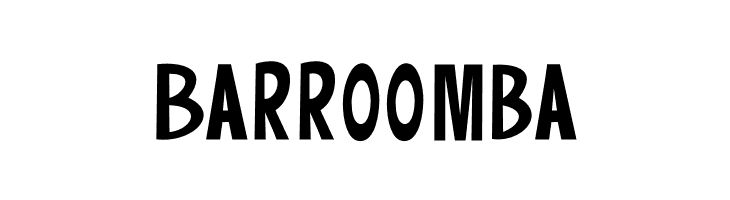
A bold, italic font with a dynamic, angular design.
A bold, geometric font with angular forms and playful design elements.
A bold serif font with a classic yet playful design.
A bold, geometric font with a modern, futuristic design.
A bold, 3D outlined font with a geometric, modern style.
A bold, 3D italic font with a modern, outlined design.
A bold, semi-italic font with a modern, angular design.
A bold, geometric, and condensed font with a modern and impactful style.
A bold, geometric font with strong, angular lines and a modern aesthetic.
A bold, slanted font with a dynamic and modern style.
A bold, outlined, semi-italic font with a modern, dynamic style.
A bold, slanted outline font with sharp, angular edges.
A bold, textured font with a distressed, three-dimensional style.
A bold, italic script font with a dynamic and decorative style.
A bold, playful handwritten font with smooth, rounded characters.
Casual handwritten script with playful, flowing lines.
A bold, expressive brush-style font with a hand-painted look.
A bold, expressive brush-style font with dynamic strokes and a handmade feel.
A bold, brush-style font with dynamic, hand-painted strokes.
A dynamic and fluid script font with elegant, flowing letterforms.
A bold, angular Gothic-inspired font with sharp edges and dramatic serifs.
A bold blackletter font with sharp, angular lines and a gothic aesthetic.
A bold, geometric font with a modern, block-like design.
A bold, high-contrast font with a modern and dynamic style.
A bold, high-contrast font with a modern and decorative style.
A bold, playful font with a hand-drawn, bubbly style.
A bold, pixelated cartoon font with jagged, dynamic characters.
A bold, rounded font with a playful and modern aesthetic.